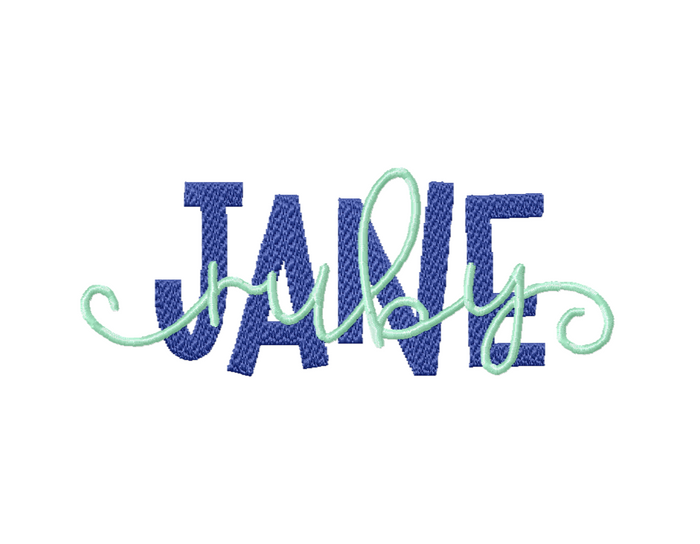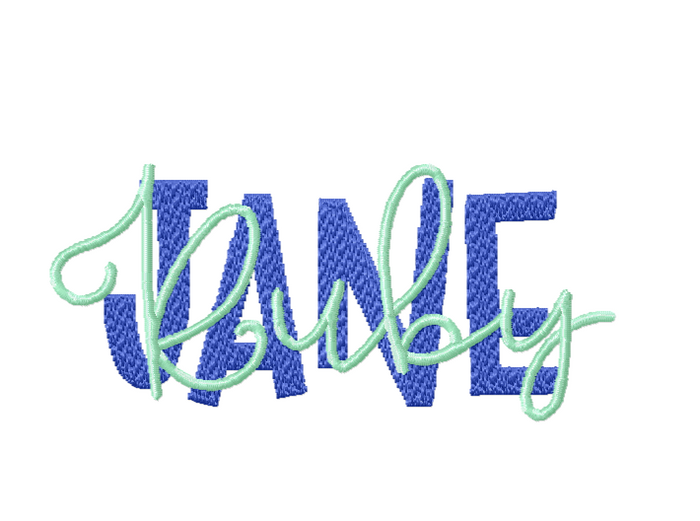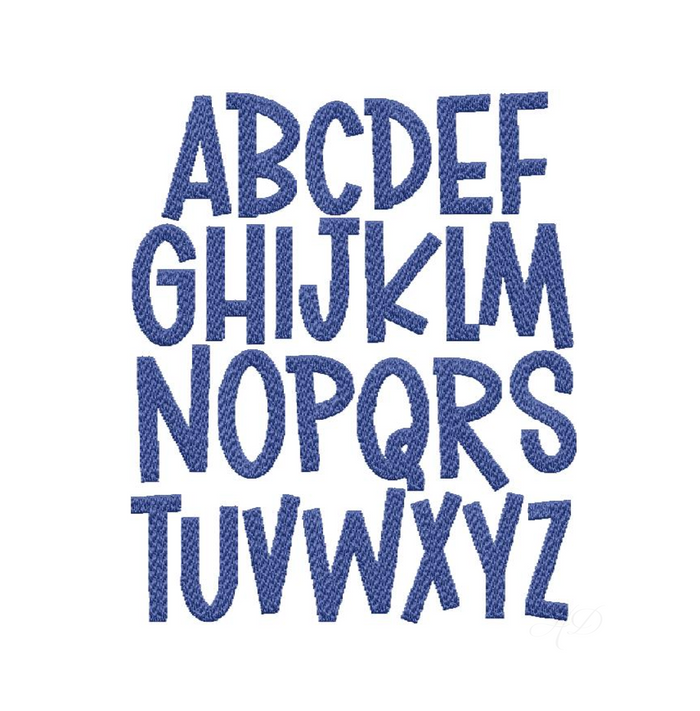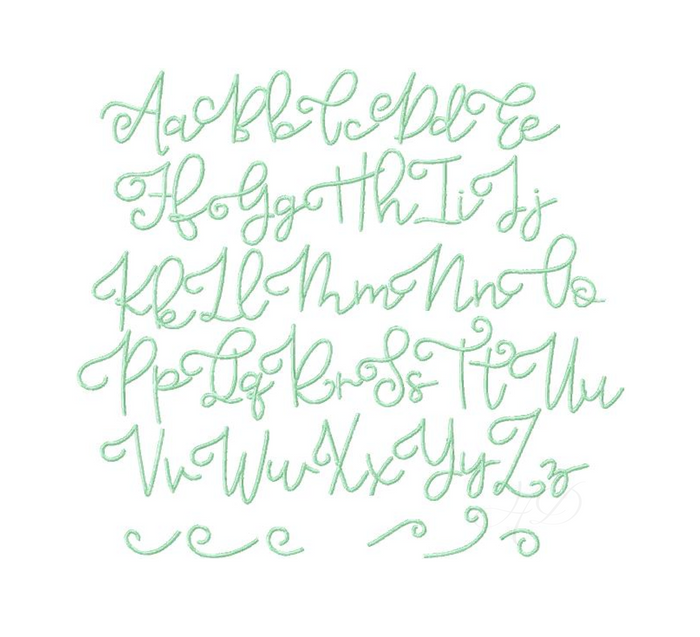
Ruby Jane Embroidery Font 4x4 | Unique Monogramming Design
Unleash your creativity with the Ruby Jane Embroidery Font 4x4, a beautifully crafted monogramming option perfect for crafters and DIY enthusiasts. This layered font features both fill and satin stitches, allowing you to create stunning designs effortlessly.
The Jane Fill font includes uppercase letters A-Z in a rich fill stitch, while the Ruby Satin font offers both uppercase and lowercase letters A-Z, complemented by three left and three right accent curls for added flair. Perfect for personalizing projects!